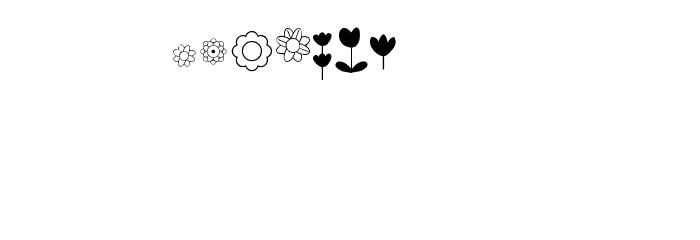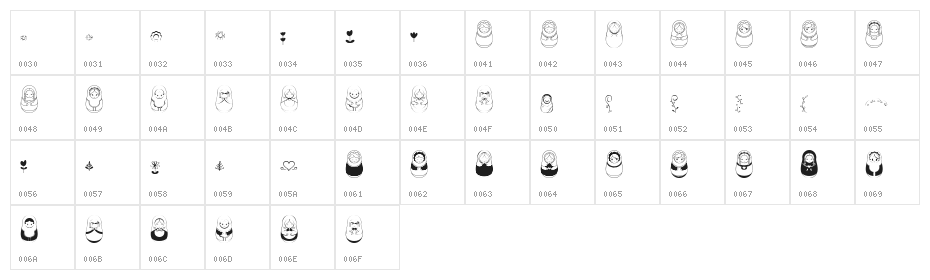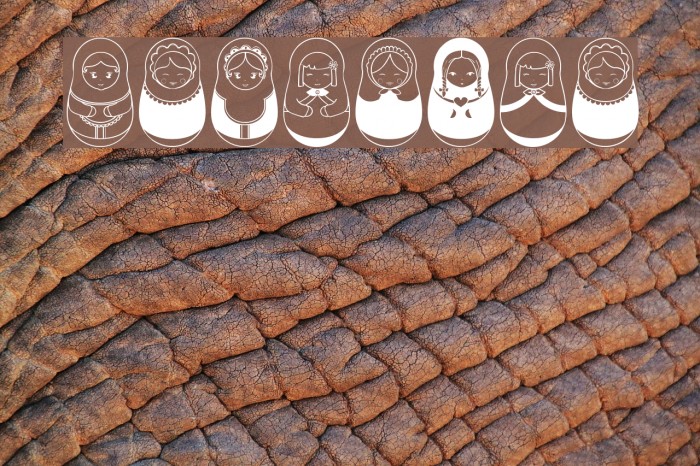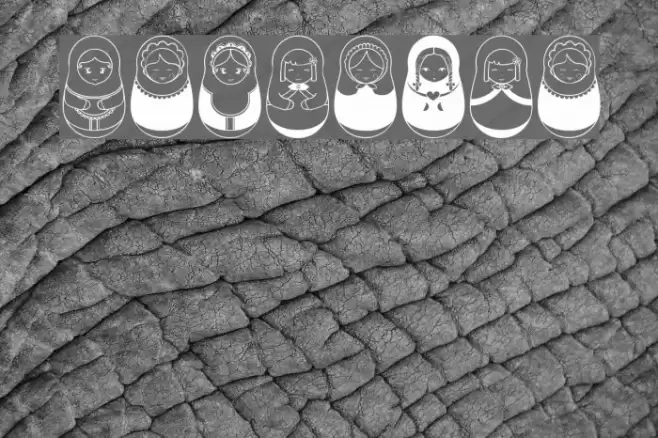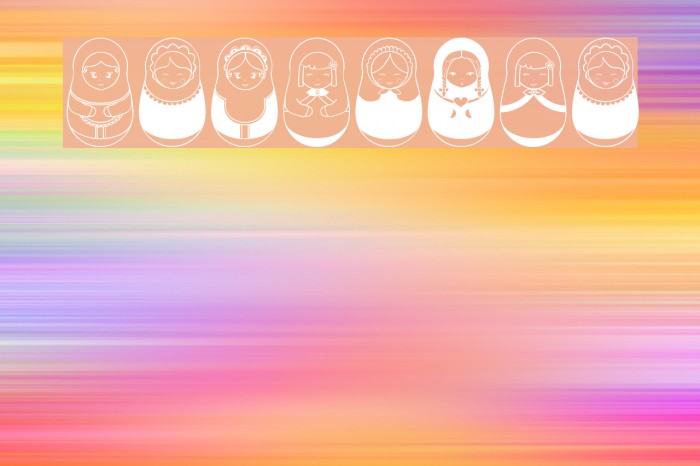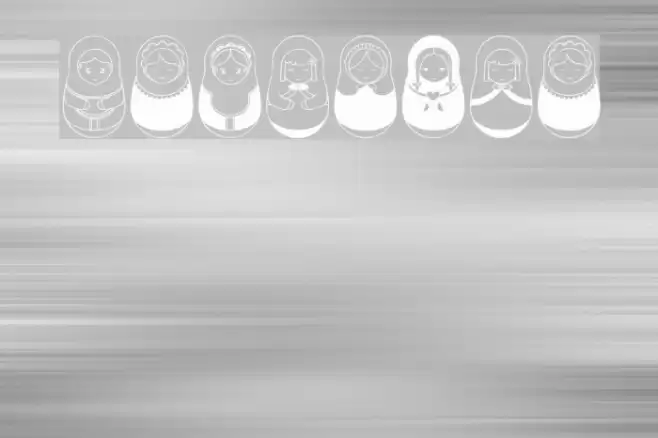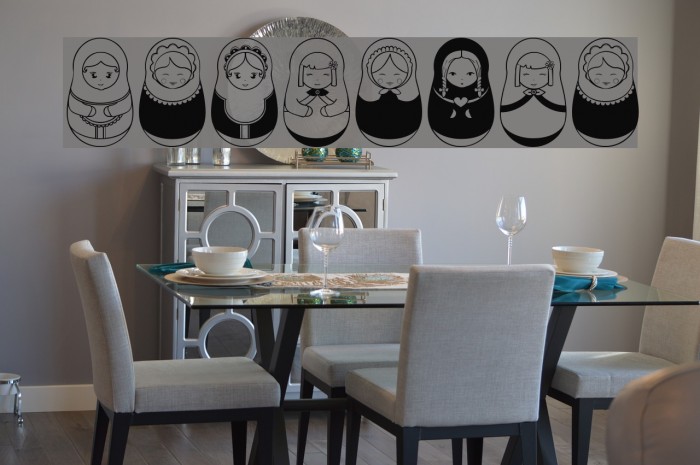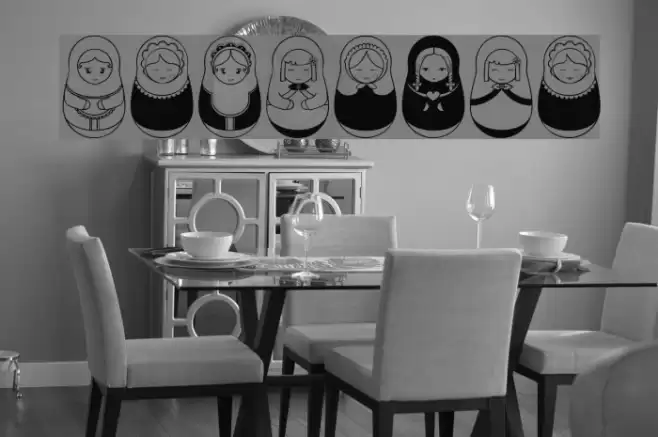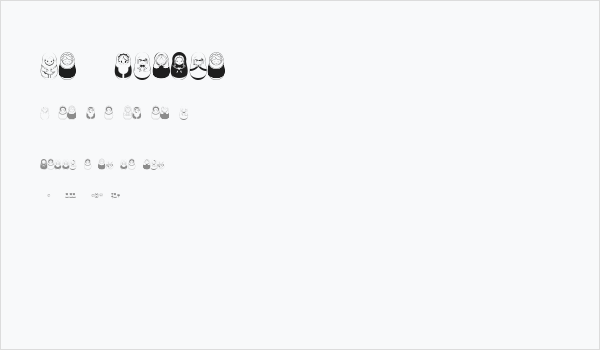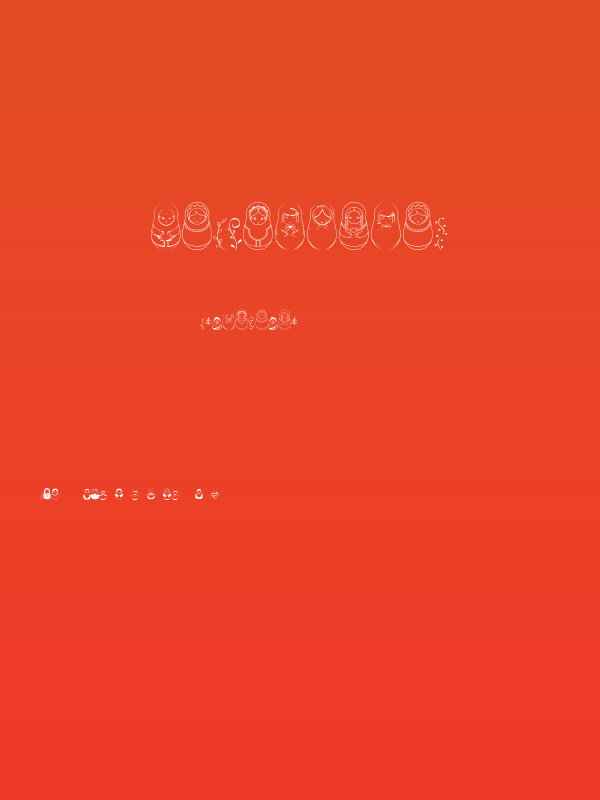
Matriochkas Font
Matriochkas Description
A decorative dingbat font featuring illustrated matryoshka dolls, floral motifs, and ornamental elements. Each character is represented by a unique, hand-drawn Russian nesting doll or a simple flower or swirl, rendered in clean black and white line art.
| Overall Style | Decorative, Playful, Hand-drawn |
| Use Case | Ornamental elements, icons, embellishments, borders |
| Proposed Projects | ChildrenΓ’β¬β’s book illustrations, greeting cards, craft projects, decorative borders, scrapbooking, playful branding. |